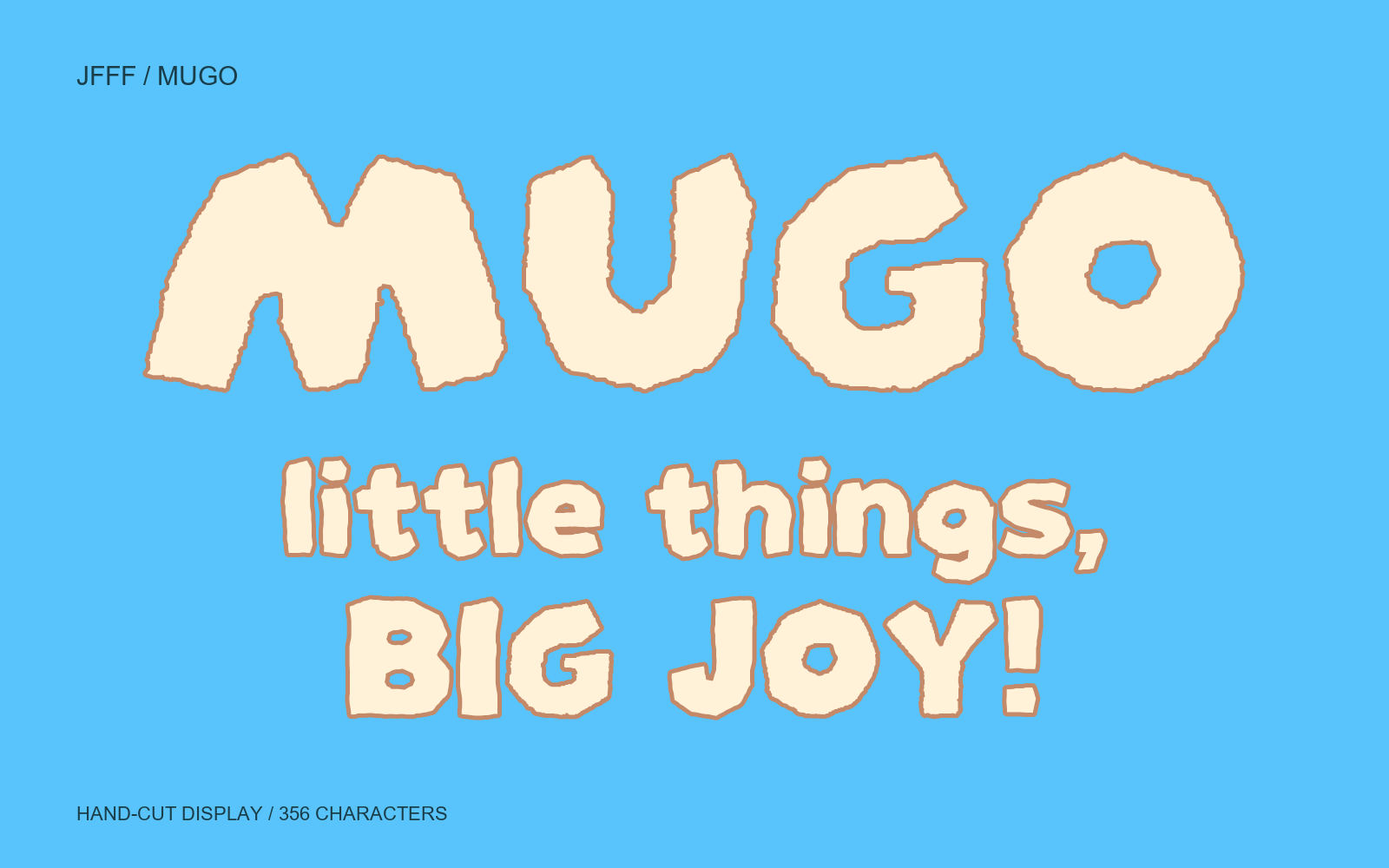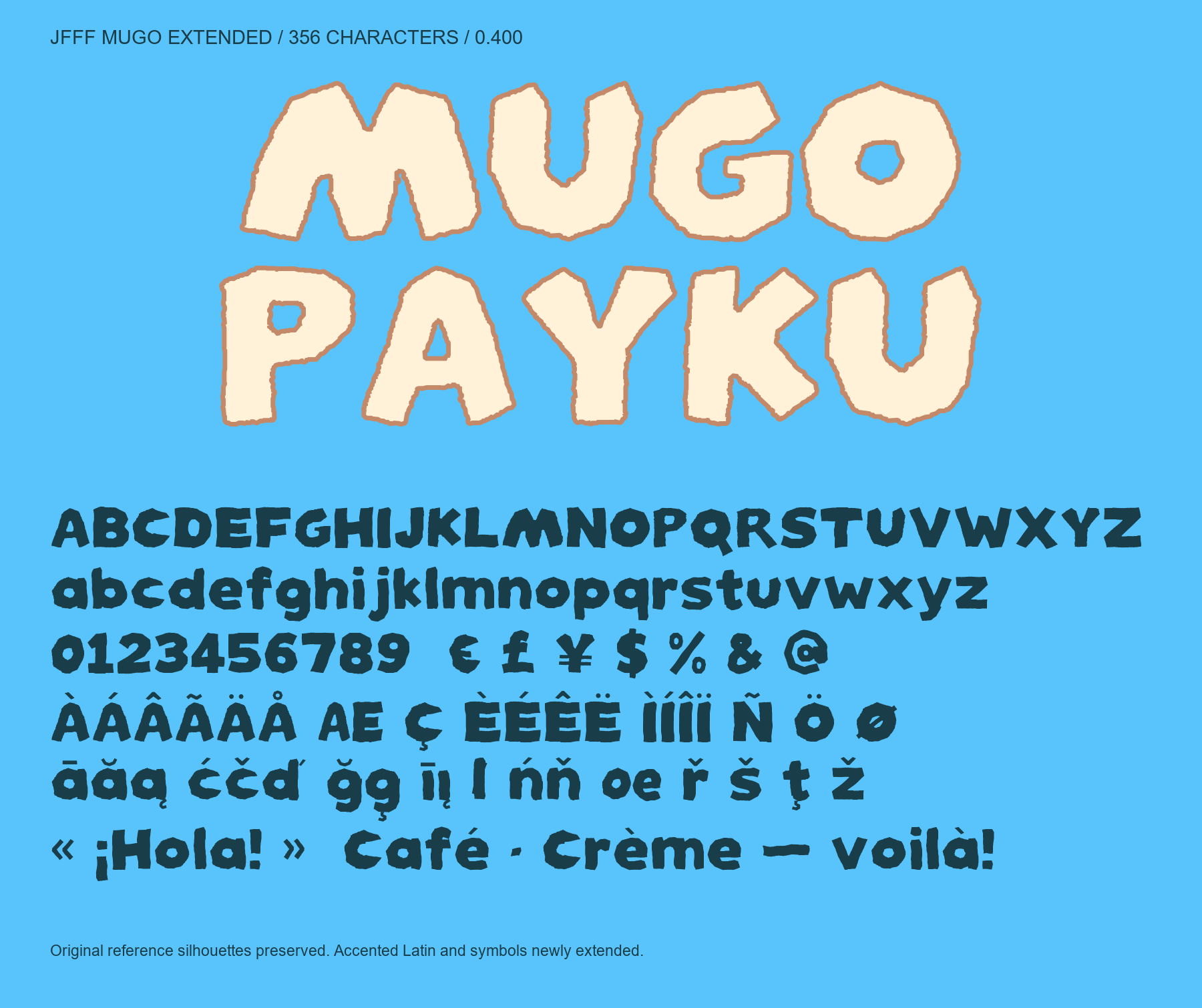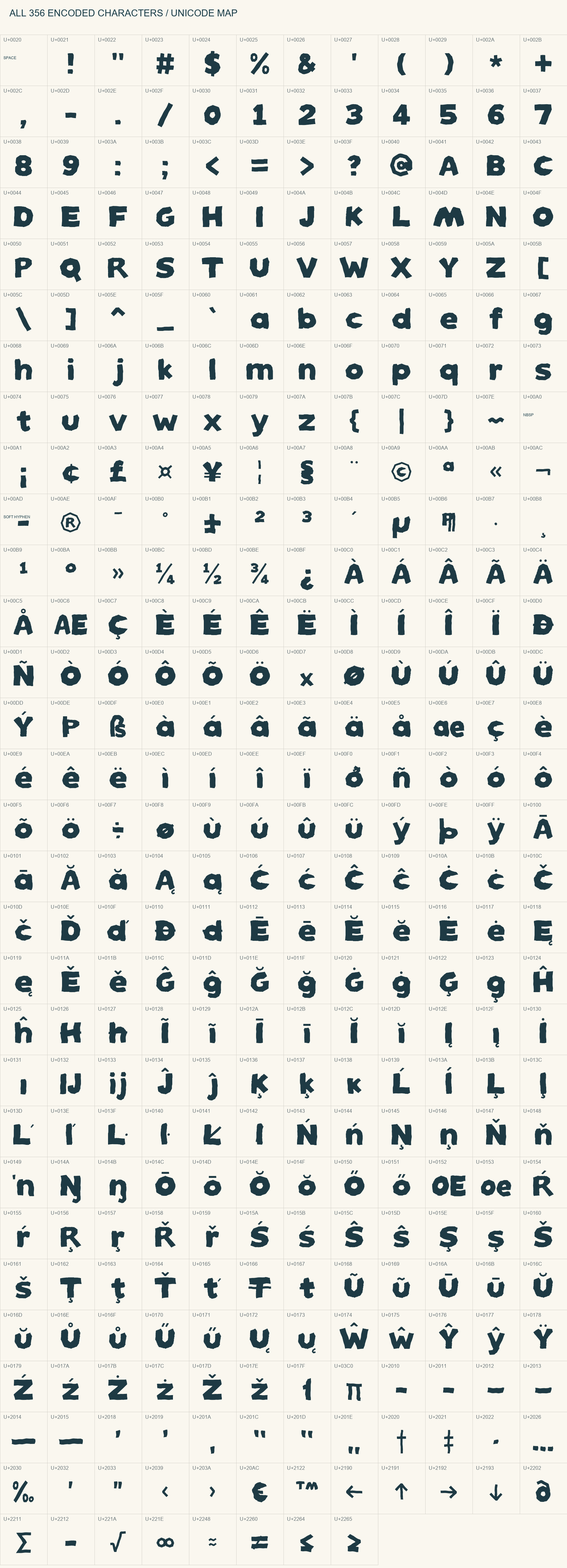
MUGO hand-cut display font: little things, BIG JOY!
These characters are included in the font file. Hangul is not included.
Short, high-impact words on stickers, labels, packaging and posters. Start at 48 pt in print or 64 px on screen, then inspect the smallest real size before exporting.
356 encoded characters and 358 glyphs: Basic Latin, Latin-1, Latin Extended-A and selected symbols. Precomposed Latin accents are supported; Hangul and independent combining marks are not. Version 0.400 is a design preview; native app and print workflows have not been verified. Explore the character set or test your own text.